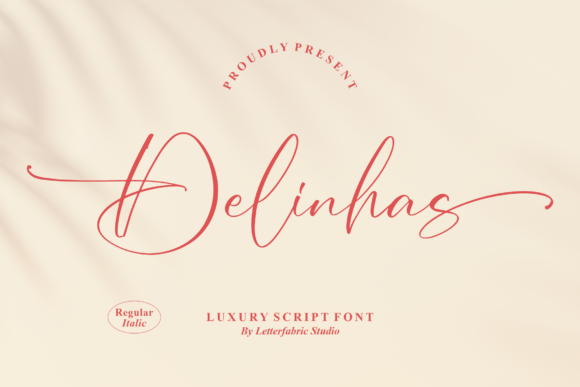
Adding a Touch of Elegance with Delinhas Font
As a designer, have you ever found yourself struggling to convey the perfect message through a beautiful script? Perhaps it’s a logo for a new business, a wedding invitation, or a promotional label for a product launch. Whatever the project, there’s something special about adding a touch of elegance with a well-crafted script font.
That’s where Delinhas Font comes in – a stylish and dainty script font designed to elevate any project. With its versatility and charm, Delinhas Font is perfect for logos, branding projects, labels, photography, watermarks, and special events. Its PUA encoding also makes it easy to access all of the glyphs and swashes, giving you complete control over your design.
Delinhas Font Key Features
- Font Family: Delinhas is a script font designed to evoke a sense of elegance and sophistication.
- Unique Characteristics: Delinhas features a unique, handwritten feel with subtle flourishes and connections between letters, making it perfect for creative and artistic applications.
Delinhas Font Review
As a designer, I’ve had the chance to work with various fonts, and Delinhas is one of them. Let’s dive into what I think about this font.
- Delinhas has a unique, elegant feel to it, making it perfect for luxury or high-end branding.
- The font is highly legible, even at smaller sizes, which is a must for any font.
- It has a wide range of weights and styles, allowing for flexibility in design.
- Delinhas can feel a bit too ornate for some designs, making it difficult to use in simpler or more modern contexts.
- The font may require some extra attention to spacing and alignment to avoid looking cluttered.
- Delinhas is a more decorative font, which may not be suitable for body text or paragraphs of text.
Delinhas is a beautiful font that shines in the right context. While it may not be the best fit for every design, it’s perfect for when you need to add a touch of elegance and sophistication. With some careful consideration and attention to detail, Delinhas can be a great addition to your design toolkit.
Delinhas Font is ideal for:
- Editorial and publishing projects
- Special occasion and event invitations
Remember to experiment with different font sizes, colors, and styles to get the most out of Delinhas Font.